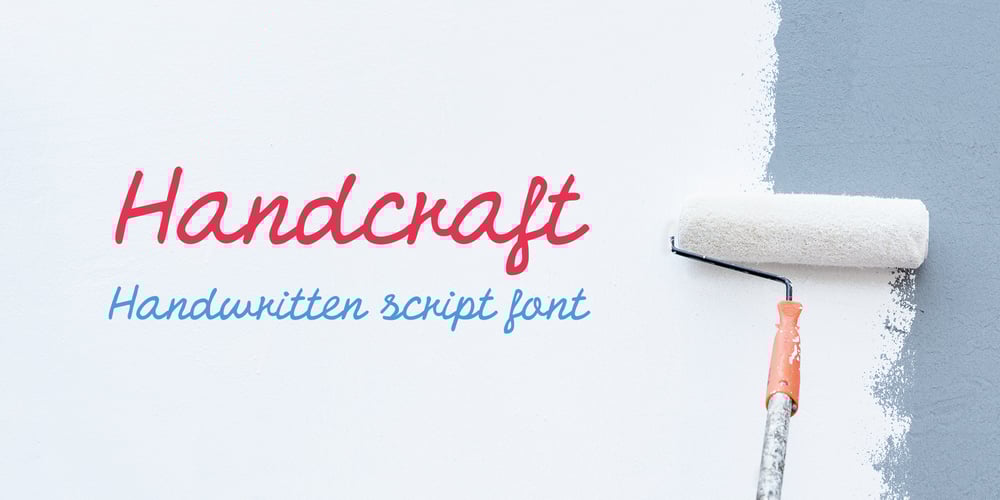
Handcraft
Handcraft font
Handcraft Font Family was designed by Daniel Bak and published by Artcity. Handcraft contains 1 styles and family package options. Handcraft is a handwritten script font. This font is ideal for any design project that needs a more handmade look. Handcraft is a great way to add a touch of handcrafted charm to your next project.Central Europe is supported in the extended glyph set. Font contains 346 glyphs and includes some alternates, as well as others, all accessible via OpenType features. Remember to turn on contextual alternates and ligatures for the best experience.Handcraft /ˈhænd.krɑːft/A skilled activity in which something is made in a traditional way with the hands rather than being produced by machines in a factory, or an object made by such an activity.